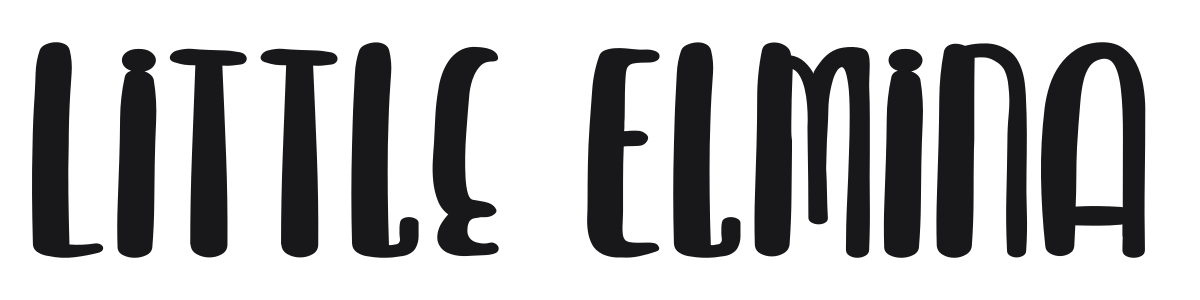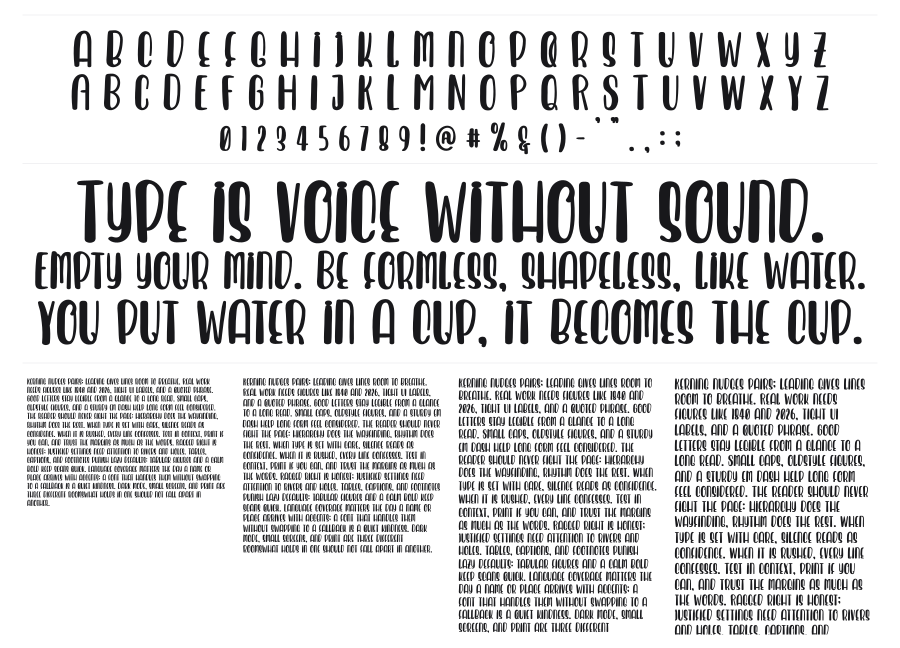
Little Elmina
Little Elmina is a condensed bold display sans with tall, narrow proportions and soft rounded terminals that give it a warm retro personality. The letters carry subtle calligraphic influences that keep the design feeling handmade rather than mechanical. It suits bold headlines, packaging, and anywhere a friendly vintage mood is needed.